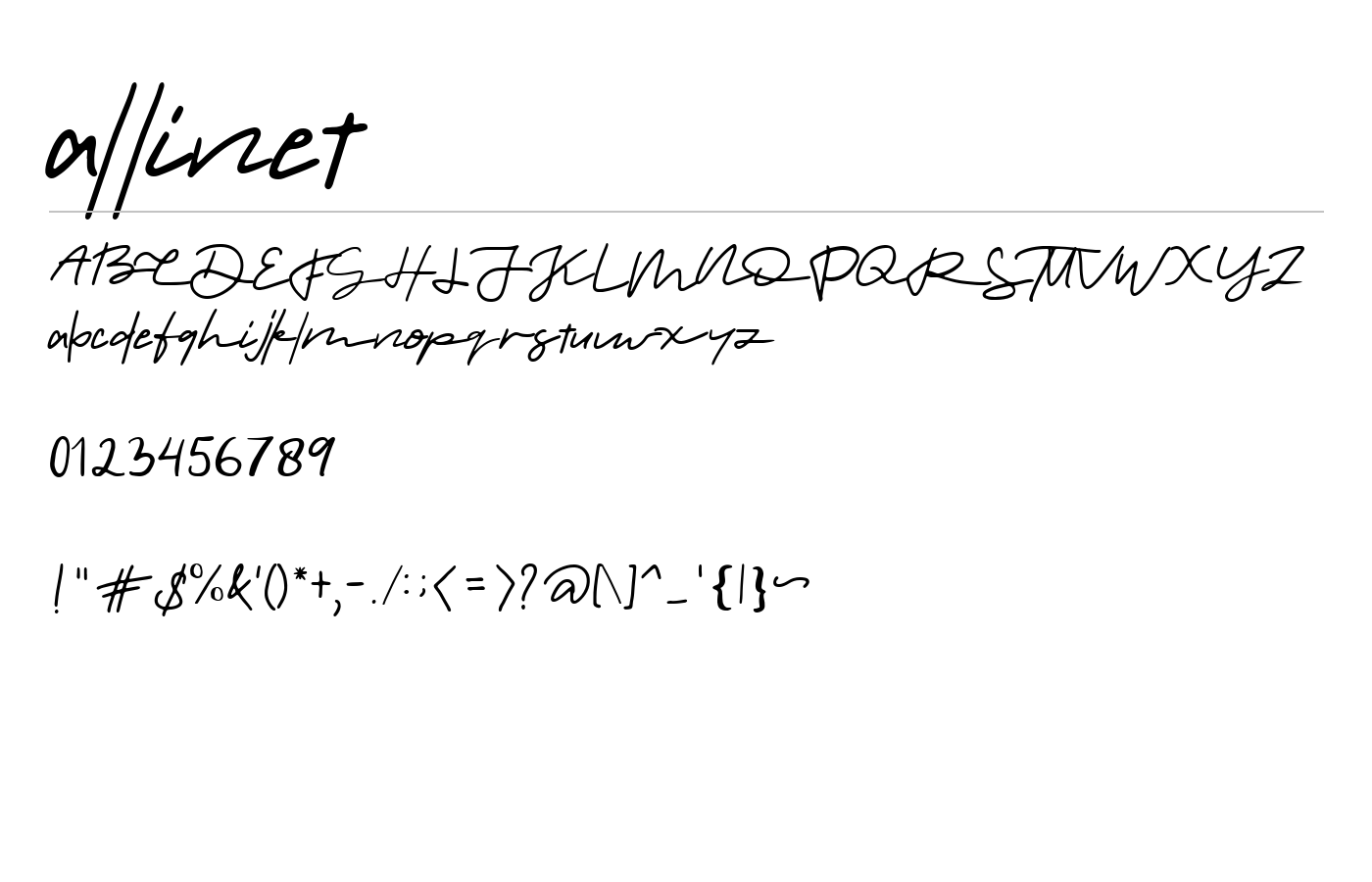
Allinet is a casual, handwritten script font that features slender, fluid strokes with a lively and personal touch. Its light weight and natural letter connections give it a friendly, approachable feel, making it ideal for creative branding, invitations, and informal editorial designs. This font works best where a relaxed, humanistic style is desired to convey warmth and authenticity.
allinet Font
About allinet Font